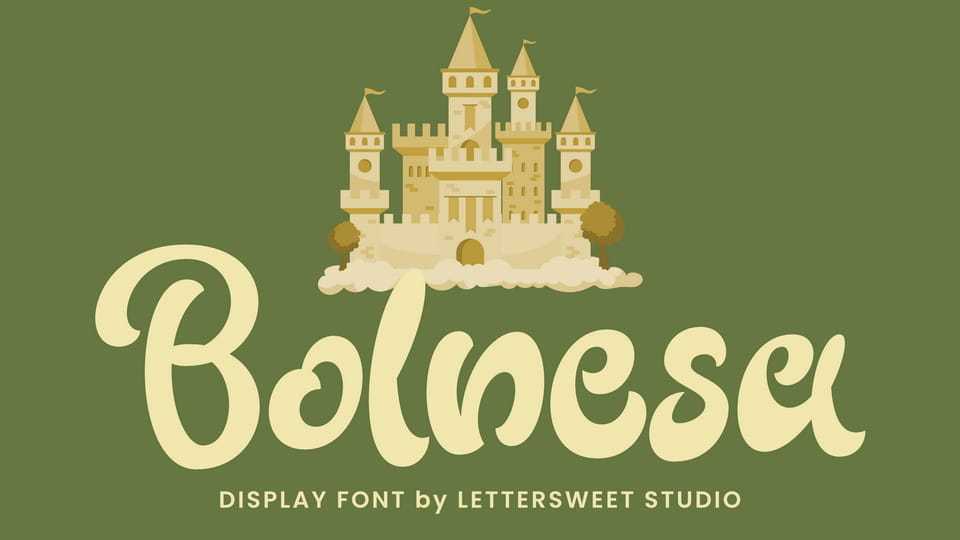
Download Bolnesa font, a bold, playful display typeface with smooth, rounded shapes and a sweet storybook charm. It brings a fairytale, kids-friendly, and whimsical feel to any design.